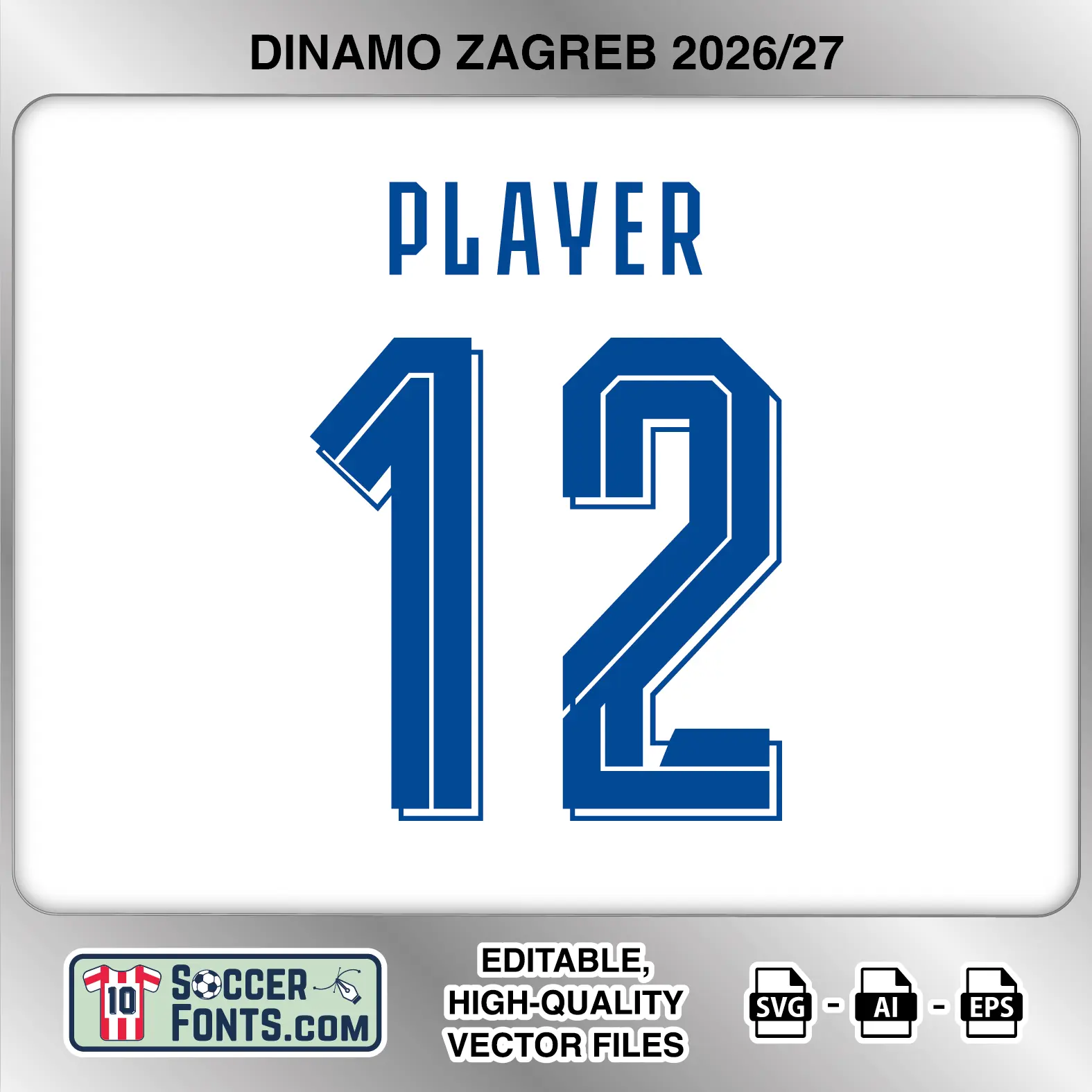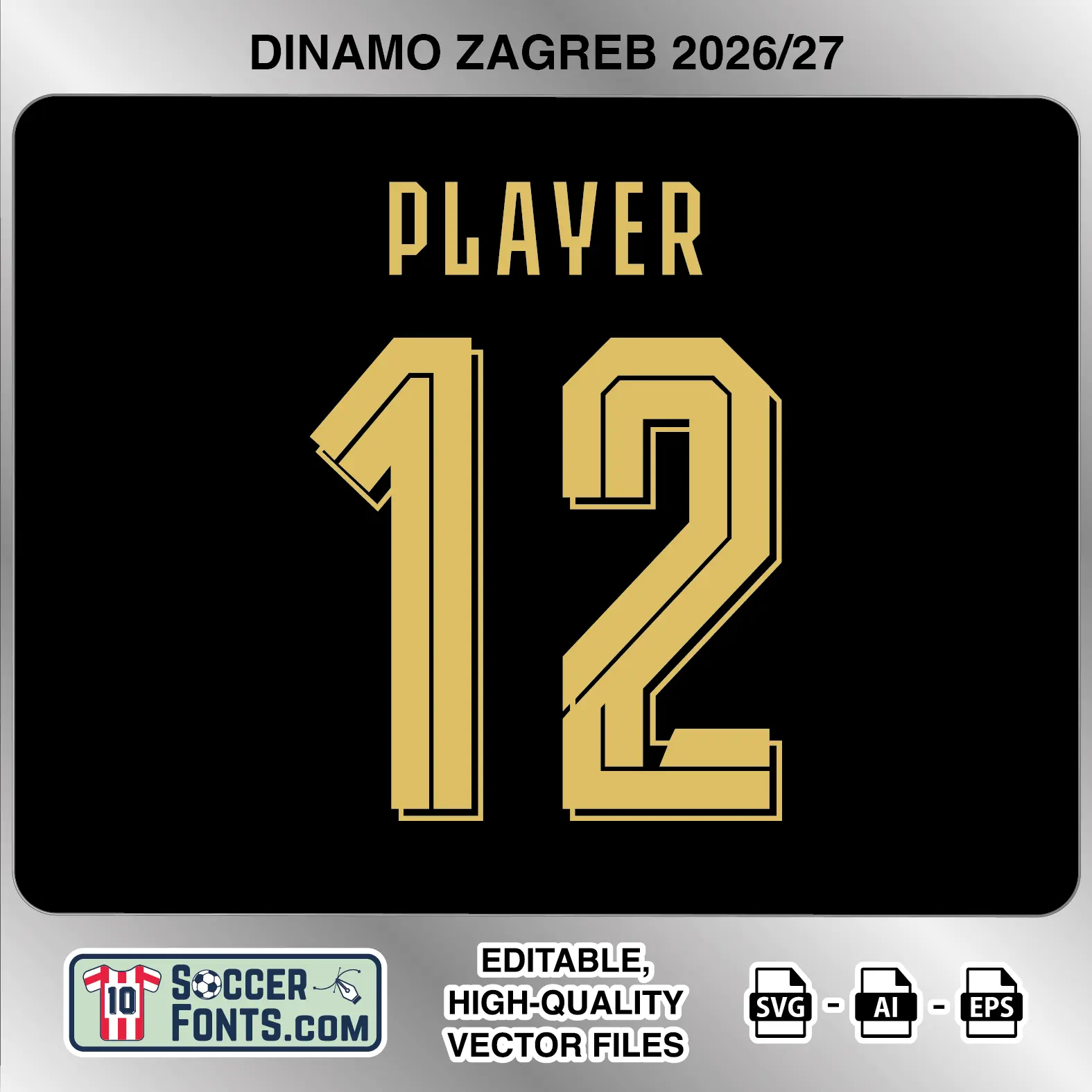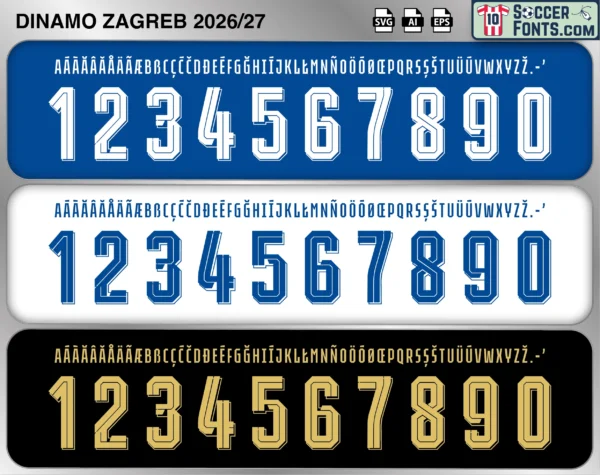
Download Dinamo Zagreb 2026-27 font, an editable soccer jersey lettering design in vector format inspired by the Dinamo Zagreb home, away and third kit styles used during the 2026-27 football season. This football font artwork is prepared for football shirt recreations, custom jersey projects, football kit mockups and sports graphic design workflows.
Visual Identity of the Font Design :
The Dinamo Zagreb 2026-27 lettering combines a very tall, narrow uppercase alphabet with large geometric numbers. The name characters use condensed proportions, straight vertical strokes and angular details, while the numerals are significantly wider and built from strong block forms. Distinctive cut corners appear throughout the number set, particularly around the 2, 3, 5, 6, 8, 9 and 0. The 1 has an angled upper section, the 4 uses an open construction, and the 7 features a long diagonal stroke. A prominent secondary line runs inside and alongside sections of the numerals, creating a layered dimensional effect rather than a simple solid-fill number style.
The home treatment uses white lettering and numbers against Dinamo’s blue background, with blue internal line details visible inside the white numerals. The away treatment reverses the combination with blue lettering and numbers on white, retaining the same layered line construction. The third treatment uses a warm gold tone against black, with dark internal detailing defining the geometric number shapes. The supplied character set also includes an extended selection of accented uppercase letters for international player names.
Context of 2026-27 Season for Dinamo Zagreb :
Dinamo Zagreb entered the 2026-27 campaign with Mario Kovačević leading the squad and another season combining Croatian domestic competition with European football. The Dinamo Zagreb 2026-27 Font belongs to a campaign in which the club again carries its familiar Zagreb identity into matches at home and across the continent, with players such as Luka Stojković, Luka Ivanušec, Josip Mišić, Dion Beljo and Mislav Oršić among the squad.
European competition is an important part of the season, with Dinamo participating in the UEFA Europa League league phase. Their schedule begins away against Hapoel Beer-Sheva before home matches against Anderlecht and N.E.C. Later fixtures include Sunderland, Bayer Leverkusen, Rennes, AZ Alkmaar and Sturm Graz, giving the club a varied continental calendar alongside its domestic commitments.
For football shirt collectors and kit design projects, the Dinamo Zagreb 2026-27 Font brings the home, away and third lettering treatments together in one package. With white used on blue, blue on white and gold on black, the Dinamo Zagreb 2026-27 Font provides a complete lettering reference for recreating the club’s three main 2026-27 shirt styles.